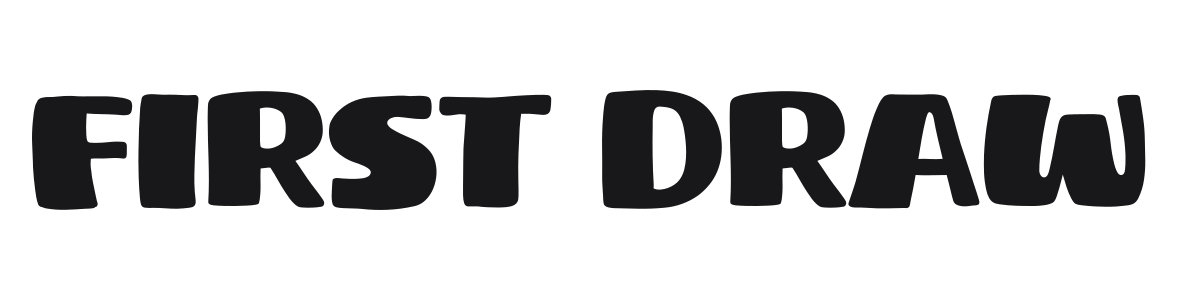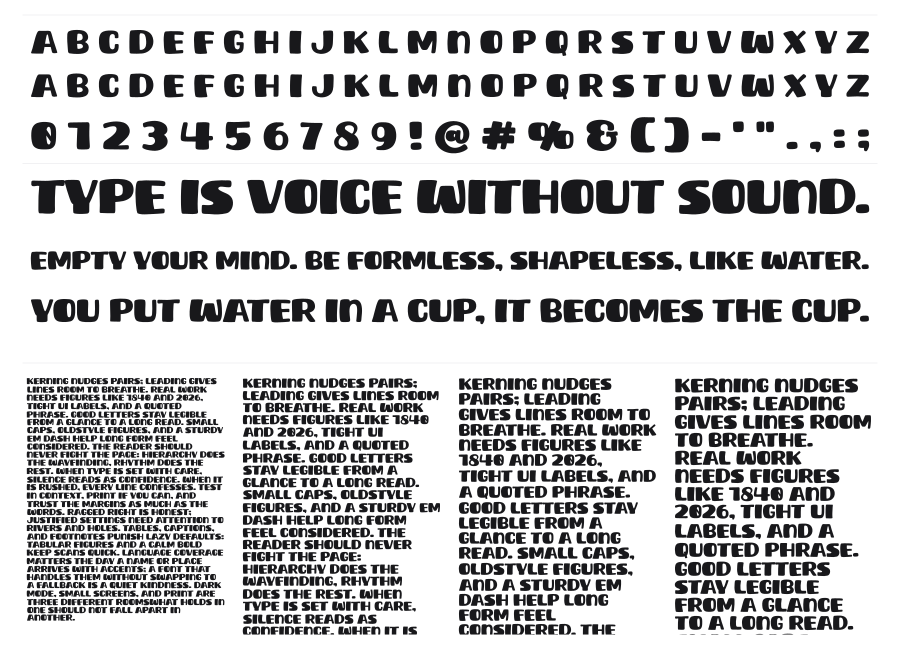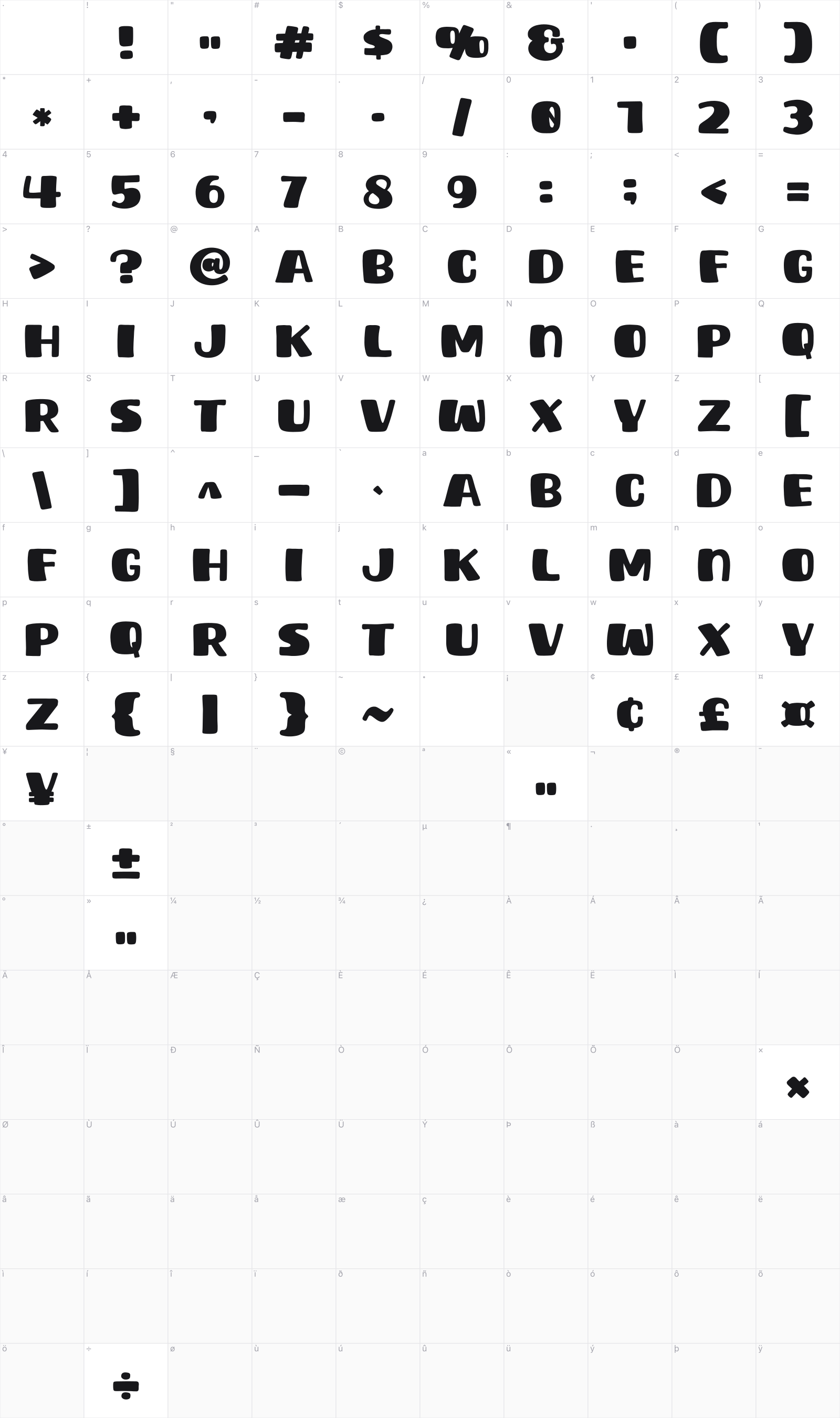
First Draw
First Draw is a heavy hand-drawn display font with thick, irregular strokes and a casual comic energy. The slightly wobbly outlines and carved interior details give each character its own personality without sacrificing legibility at large sizes. It works well for posters, packaging, and any project that needs a bold, approachable handmade feel.